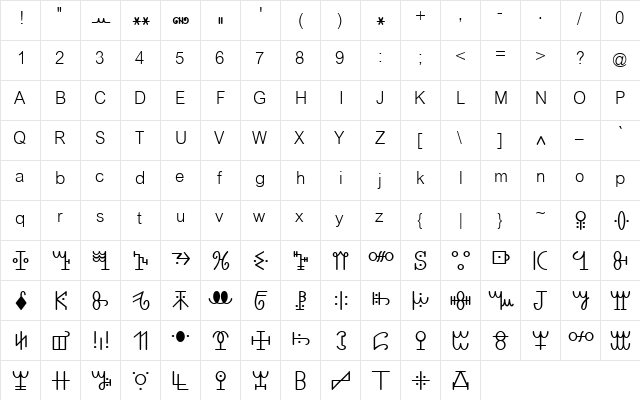
JG Vai B Regular
Design Context for JG Vai B Typeface
JG Vai B offers clean, dependable letterforms without strong stylistic allegiance, making it a practical choice for designers who need flexibility.